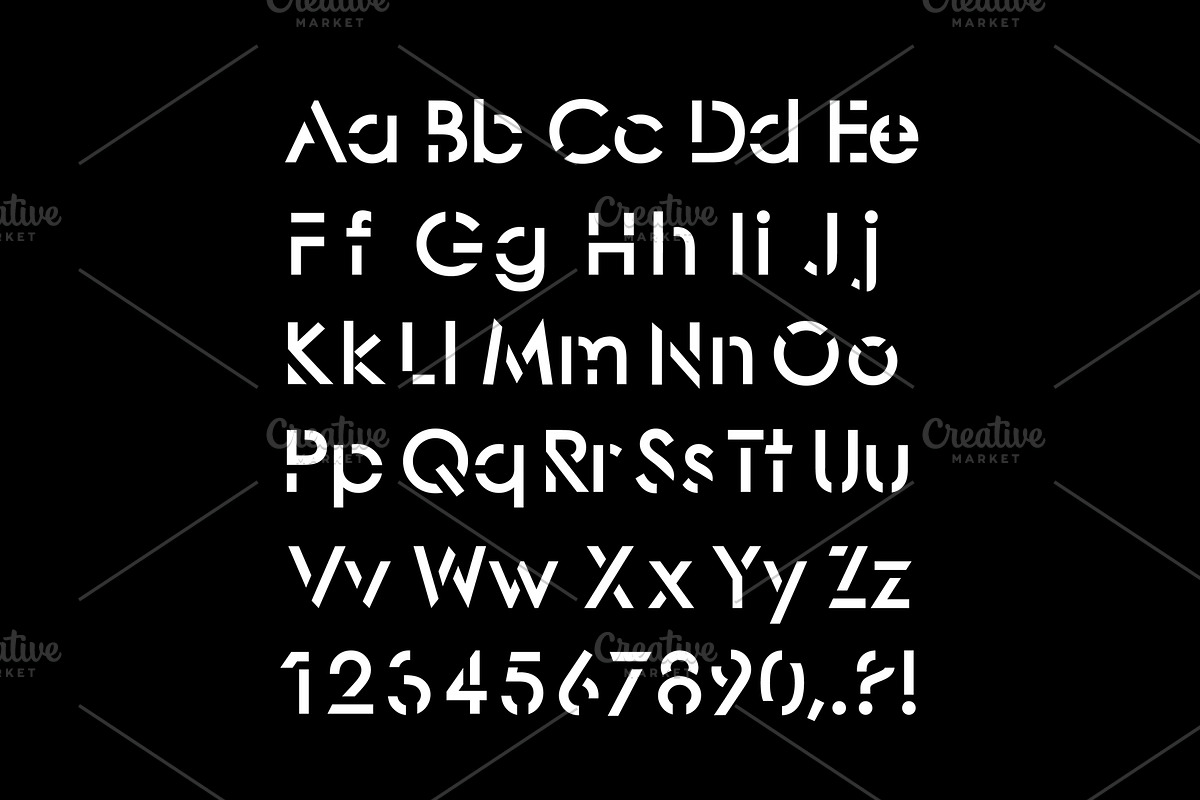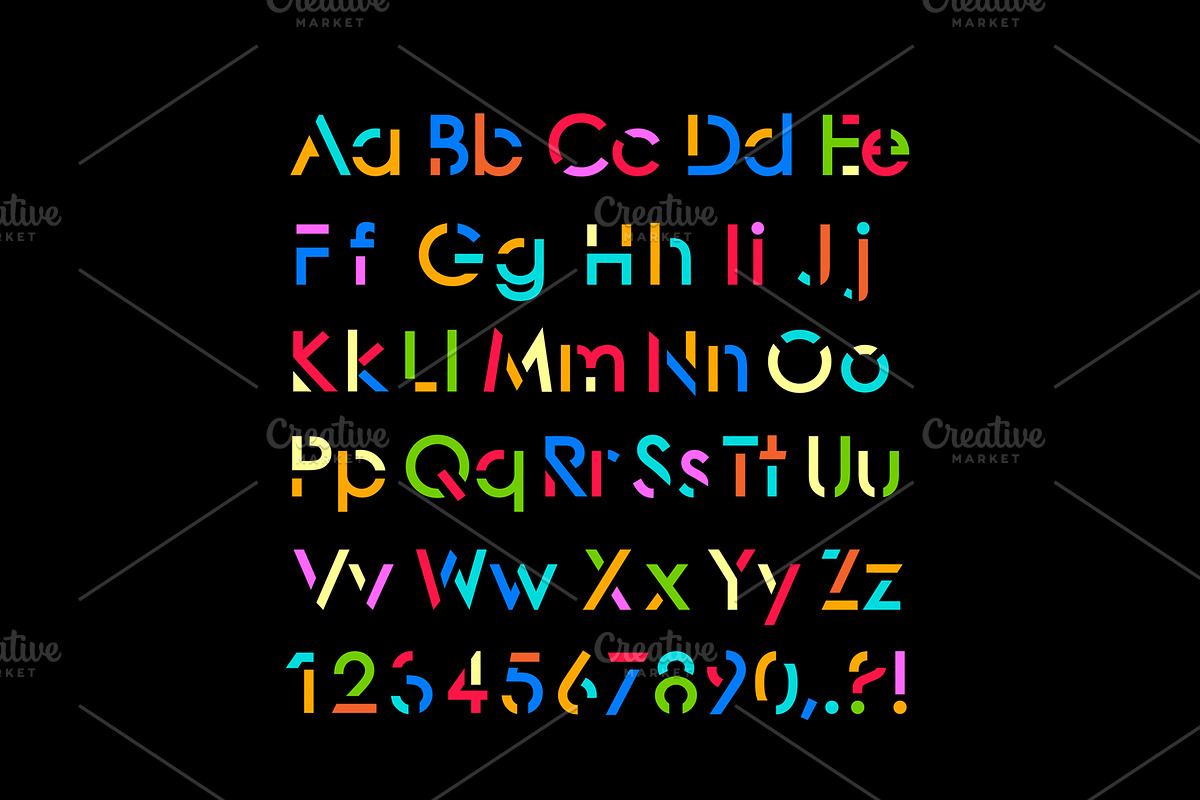
Modern stylized font.
Modern stylized font and alphabet. Vector illustration. Isolated on black background.
Why Modern stylized font. is worth a look
Modern stylized font. by Vector photo shop fits naturally into Branding, posters, packaging, typography.